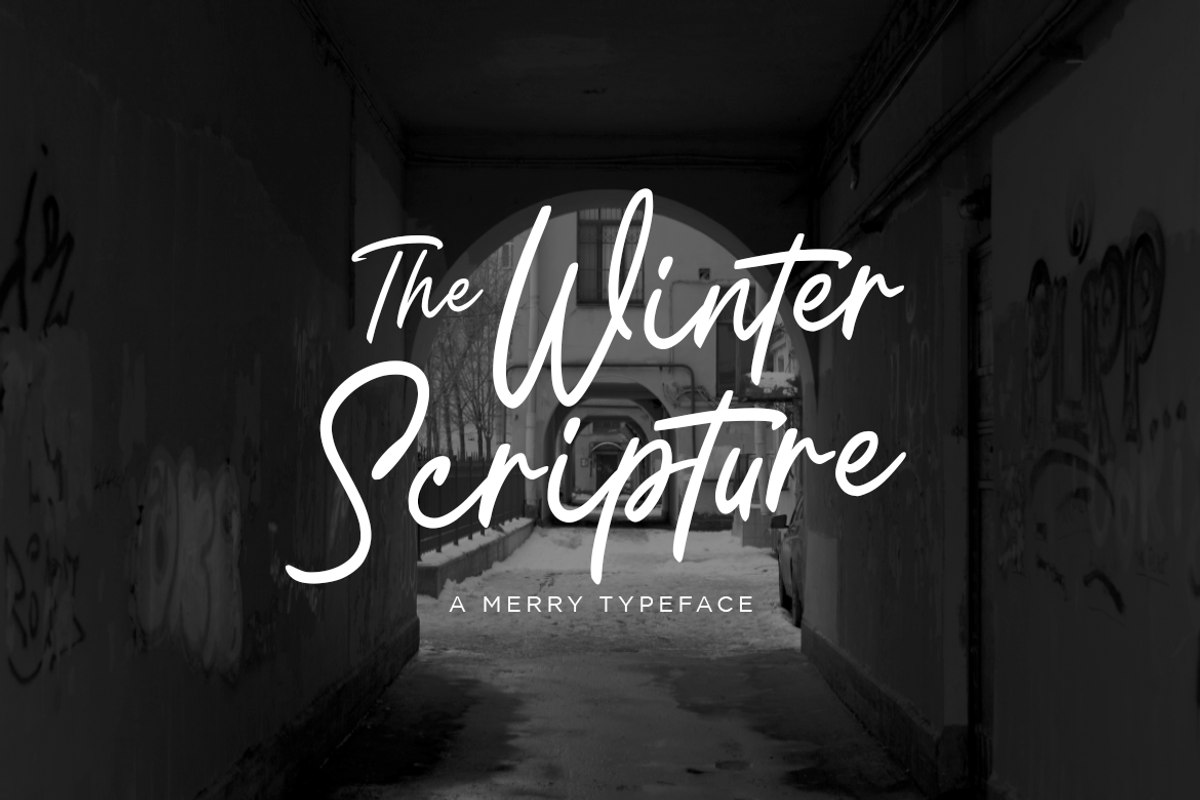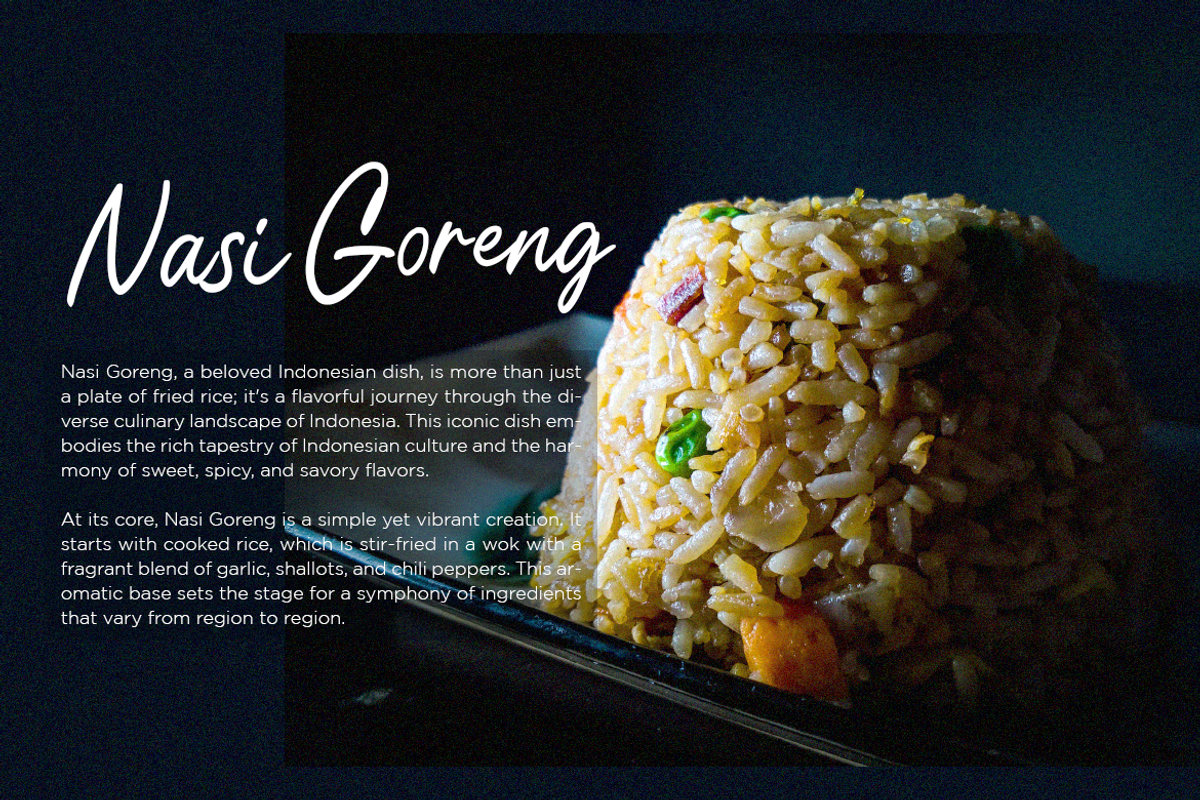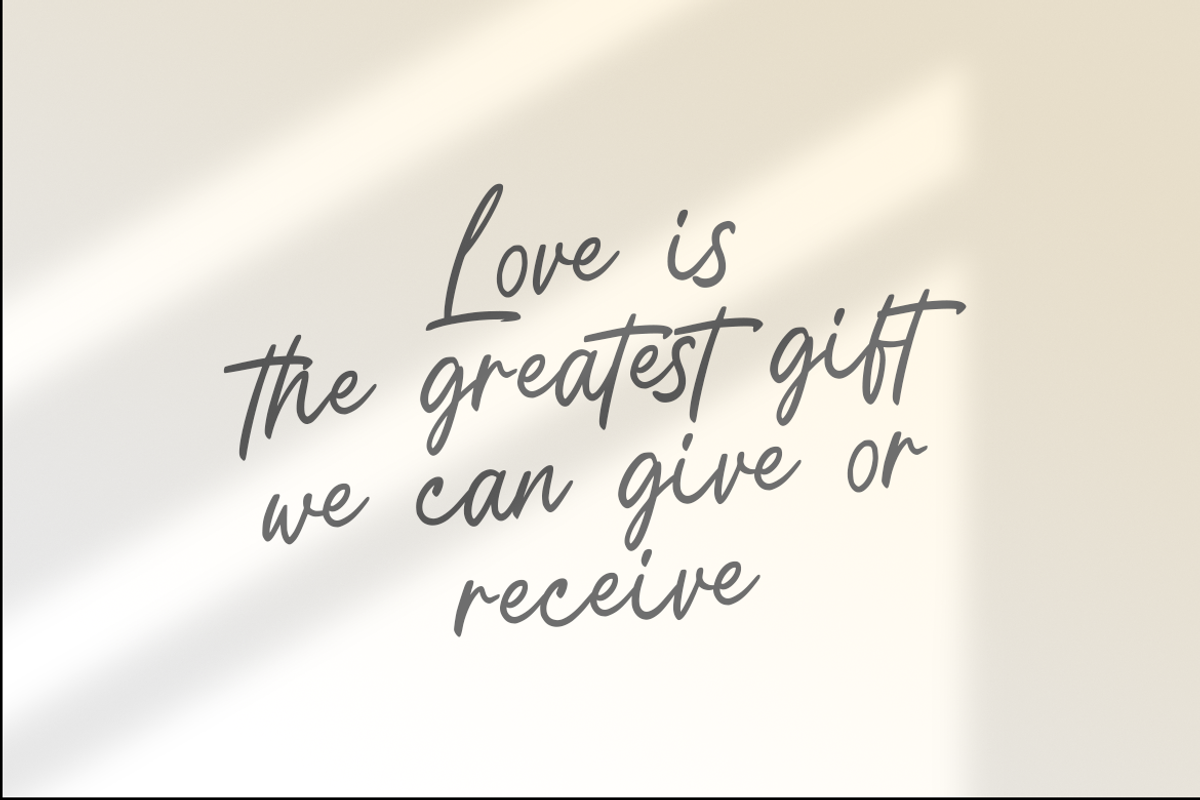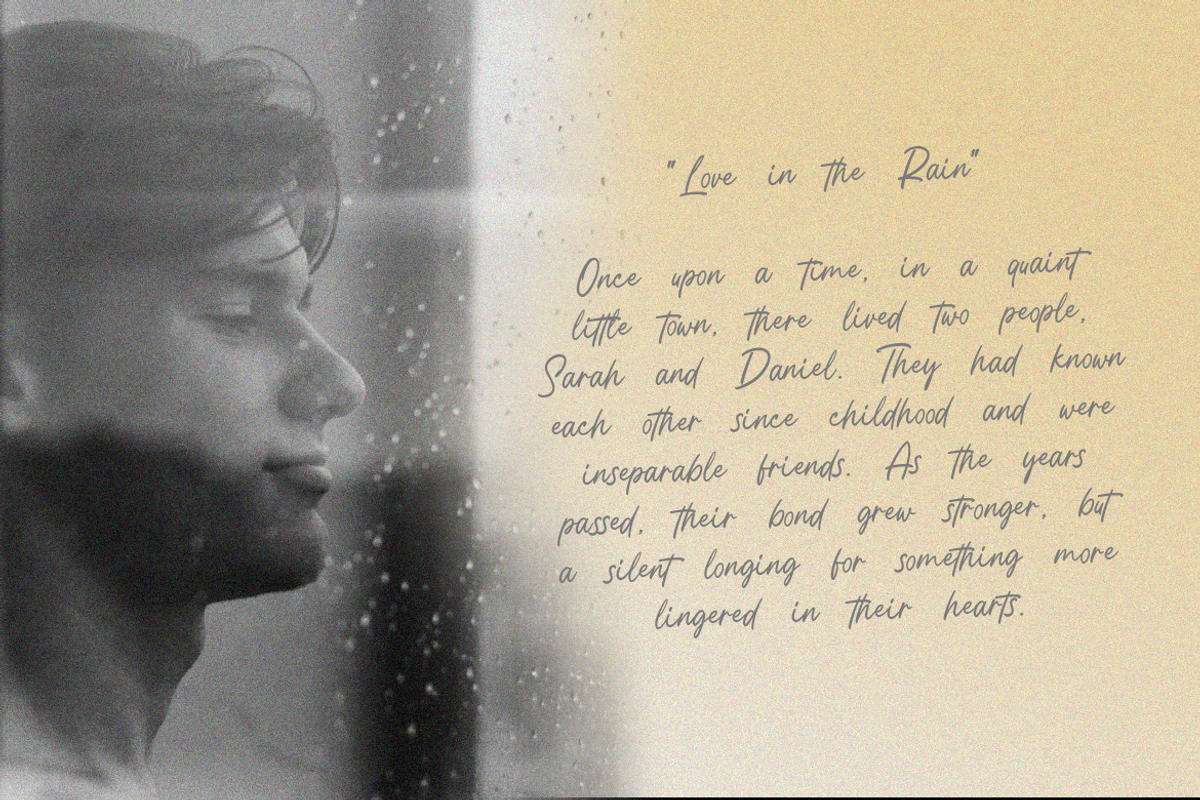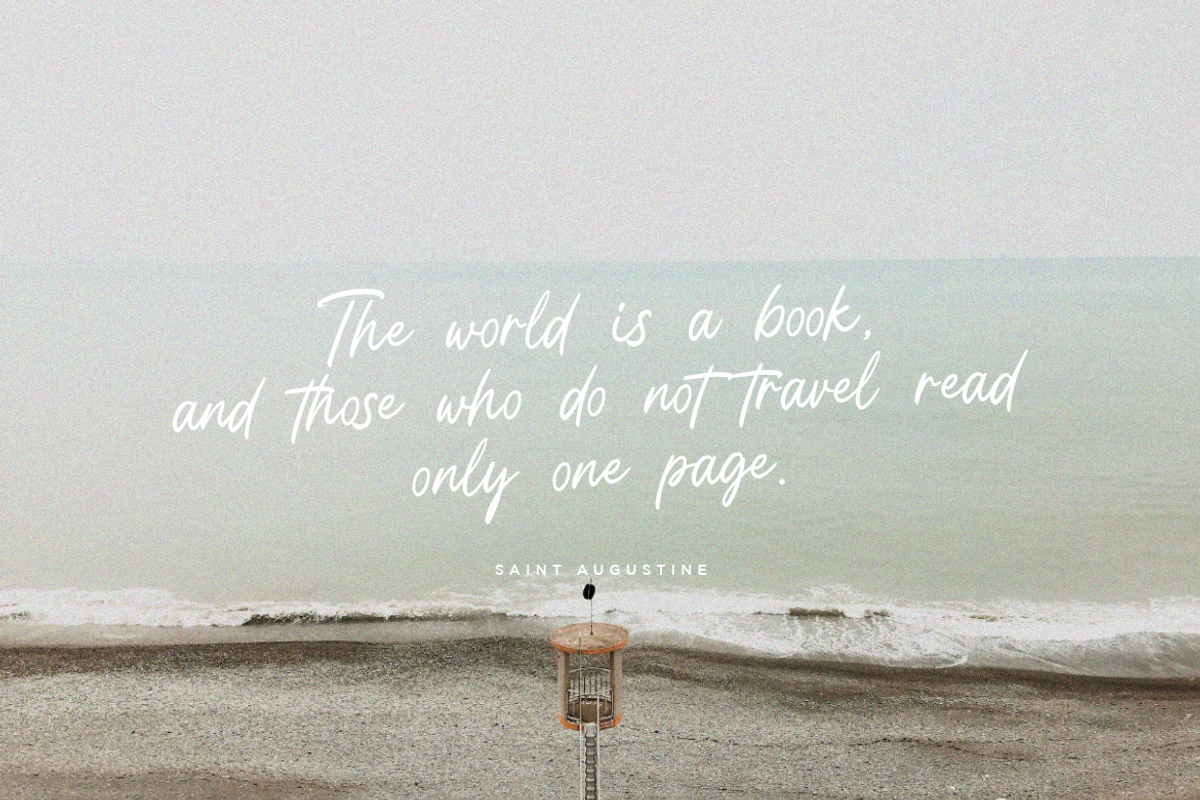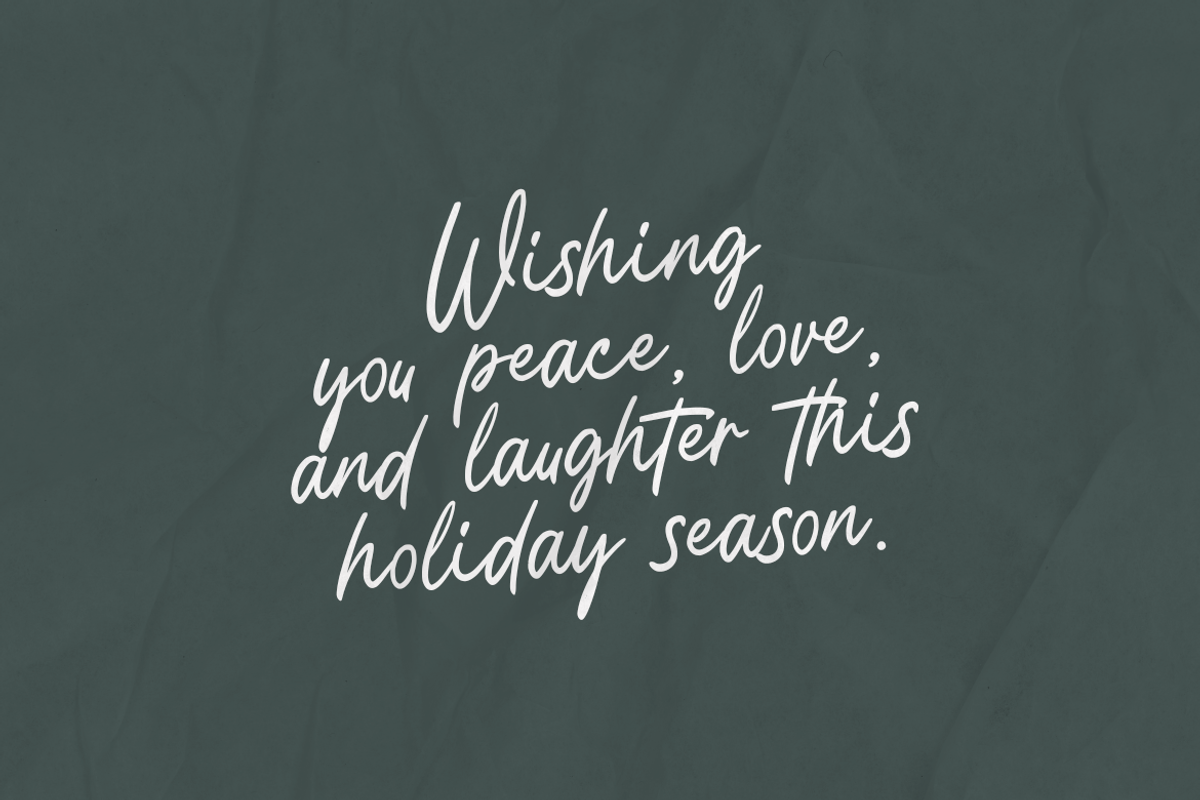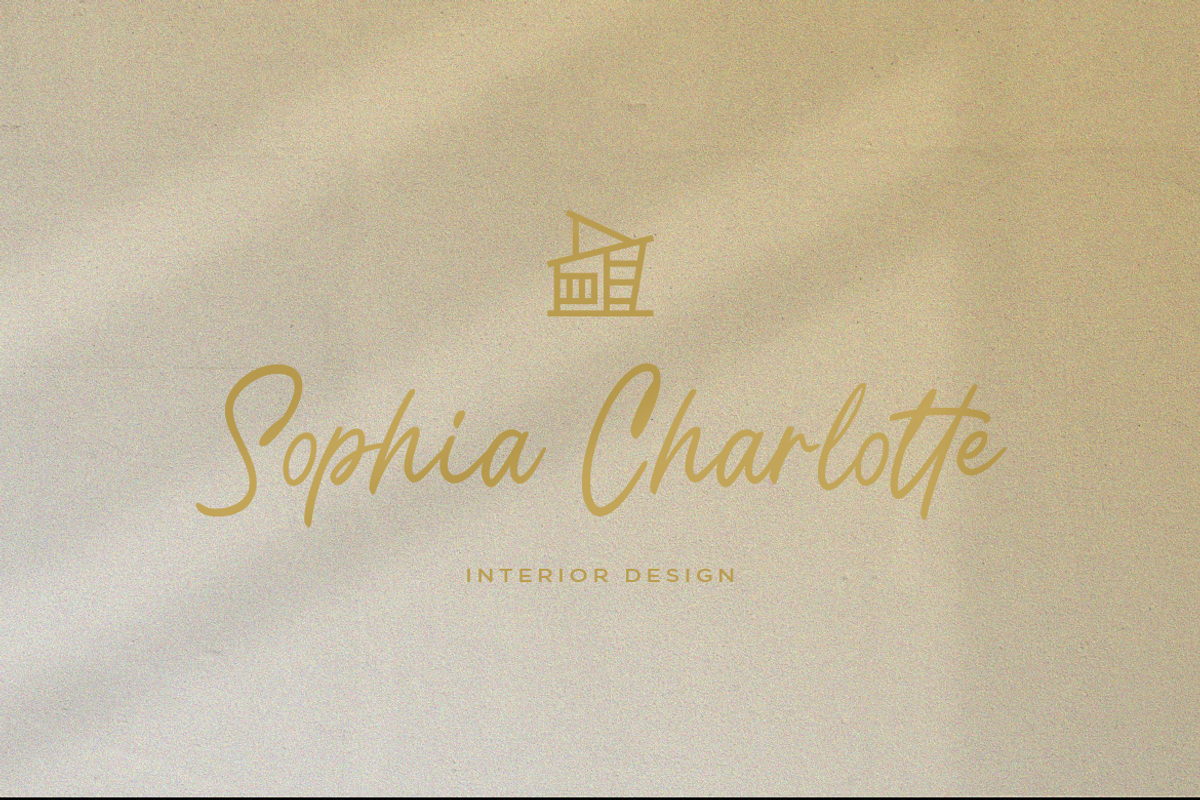
A Merry Font || The Winter Scripture
The Winter Scripture is a script font that radiates the spirit and warmth of Christmas in every letter. With its beautiful design and playful typographic accents, this font brings the holiday season's joy to life in all your projects.
Each letter in The Winter Scripture is a meticulously crafted work of art, reflecting the longing for the beauty of winter and the celebration of Christmas. This font is suitable for a variety of purposes, from Christmas greeting cards to merchandise designs and party decorations.
The Winter Scripture adds a special touch to your messages, making it perfect for projects that aim to convey the Christmas cheer. With this font, you can create designs that warm the heart and share the Christmas spirit with everyone.
Celebrate the holiday season with The Winter Scripture and let your messages shine in this special Christmas typography beauty.